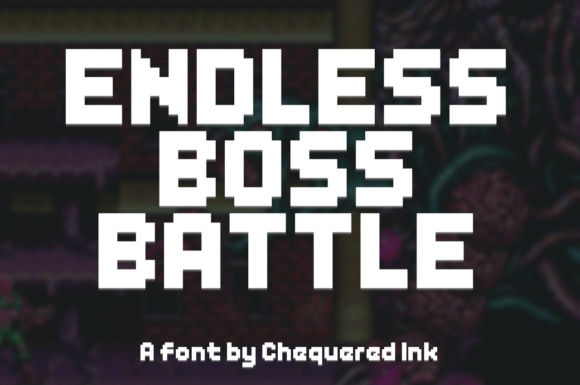
Unleash the Retro Charm with Endless Boss Battle Font
Are you a game developer, designer, or crafter looking to add a touch of nostalgia to your retro video games or projects? Look no further! The Endless Boss Battle Font is here to bring a wave of retro charm to your creations. This bitmap font, exclusively available at Creative Fabrica, is a perfect fit for those who want to evoke the spirit of classic video games without breaking the bank.
What is Endless Boss Battle Font?
The Endless Boss Battle Font is a carefully crafted bitmap font designed specifically for use in retro video games. Its pixelated style is reminiscent of the classic games from the 80s and 90s, making it an excellent choice for game developers, designers, and crafters who want to create a nostalgic feel. The font is available at a lower-than-usual price, exclusively on Creative Fabrica, making it an attractive option for those on a budget.
Key Features of Endless Boss Battle Font
- Bitmap Style: The font features a pixelated style that is characteristic of classic video games.
- Retro Charm: The font is designed to evoke the spirit of retro video games, making it perfect for games, posters, and other projects that require a nostalgic feel.
Why Choose Endless Boss Battle Font?
There are several reasons why the Endless Boss Battle Font stands out from other fonts. Firstly, its unique bitmap style is sure to grab the attention of gamers and non-gamers alike. Secondly, the font is highly versatile and can be used in a variety of projects, from video games to posters and logos. Finally, the font is available at an affordable price, making it an excellent choice for those on a budget.
Tips for Using Endless Boss Battle Font
- Use it in Retro-Style Games: The font is perfect for use in retro-style games, such as platformers, shooters, and puzzle games.
- Combine it with Other Retro Fonts: Combine the Endless Boss Battle Font with other retro fonts to create a unique and nostalgic feel.
- Use it in Posters and Logos: The font can also be used in posters, logos, and other marketing materials to add a touch of retro charm.
In conclusion, the Endless Boss Battle Font is a great choice for game developers, designers, and crafters looking to add a touch of retro charm to their projects. Its unique bitmap style, versatility, and affordability make it an excellent option for those on a budget. So why wait? Head over to Creative Fabrica and download the Endless Boss Battle Font today!